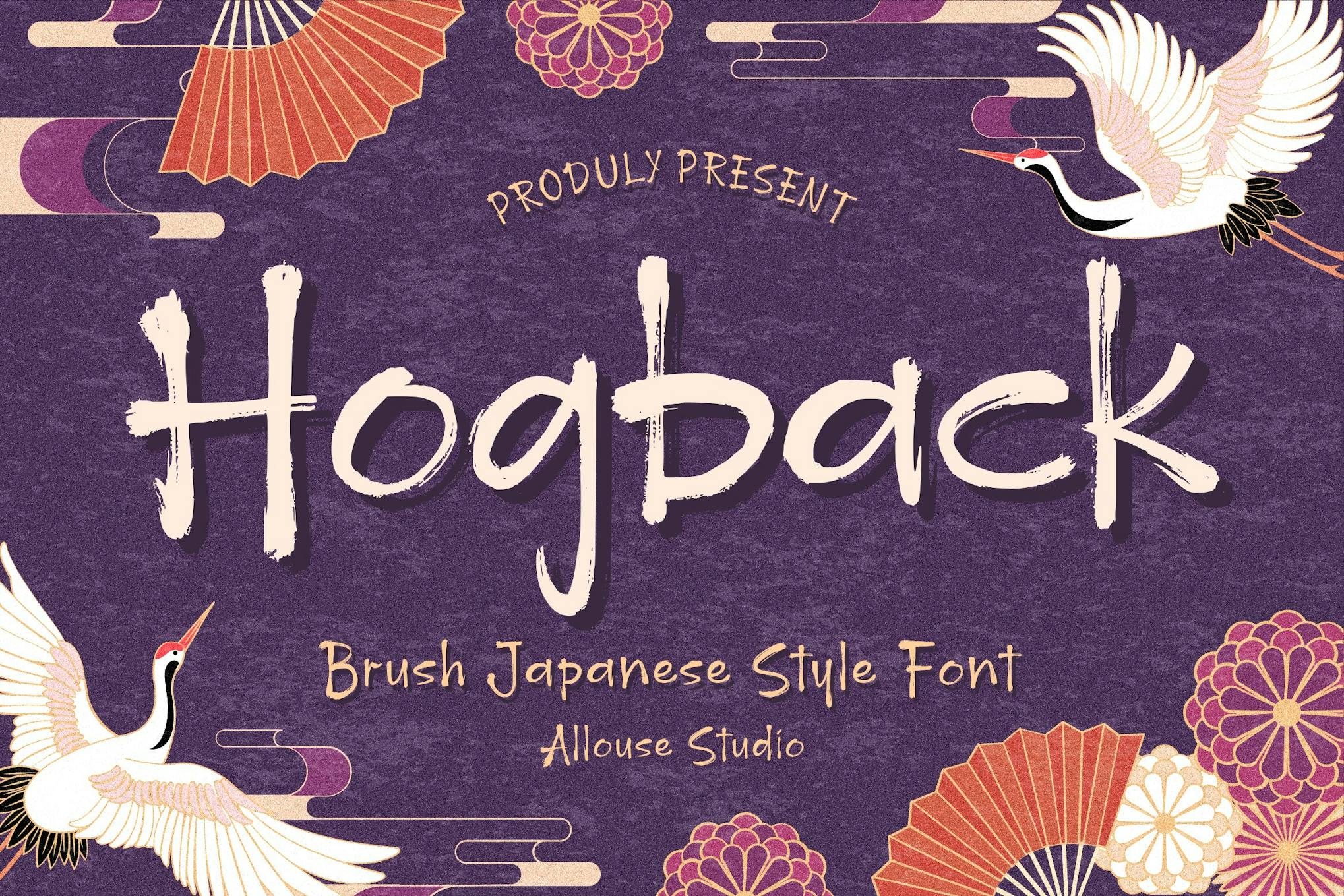
AL - Hogback Font
Perfect for vintage branding, signage, poster designs, packaging, and social media graphics.
The AL - Hogback Font excites designers with its bold, rugged, and vintage-inspired letterforms that bring a timeless, handcrafted feel to any project.
The AL - Hogback Font Free Download is a distinctive typeface designed to infuse your designs with rustic charm and strong character. Its textured, rough edges and solid shapes make it ideal for projects seeking a vintage, outdoorsy vibe. Whether you’re creating signage, posters, or product packaging, AL Hogback delivers authenticity and impact.
One of the standout features of AL - Hogback Font is its perfect blend of rugged texture and clear readability. Despite its distressed look, it maintains excellent legibility for headlines, logos, and display text, ensuring your message resonates powerfully.
In branding, AL Hogback conveys strength, tradition, and craftsmanship. It pairs beautifully with earthy color palettes, vintage textures, and natural imagery, helping brands tell stories rooted in authenticity.
For digital use, this font enhances website banners, social media posts, and marketing materials with its bold, textured style. Its strong presence ensures your digital content stands out with a genuine, handcrafted look.